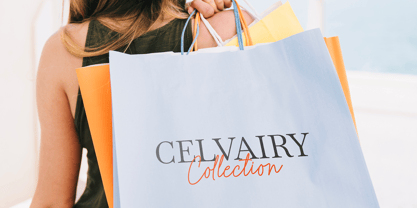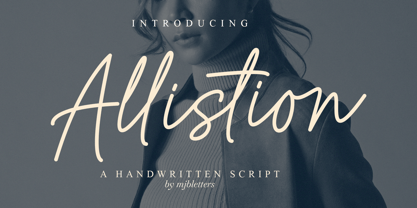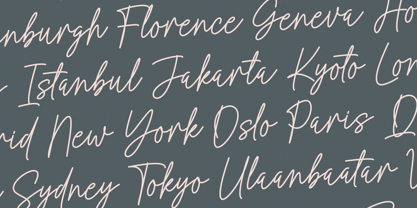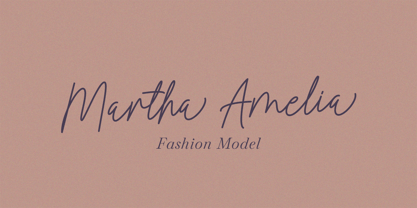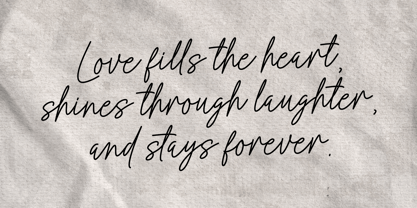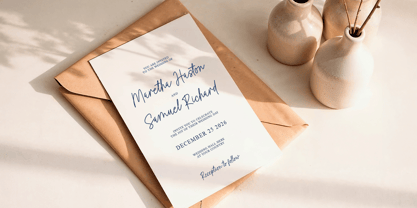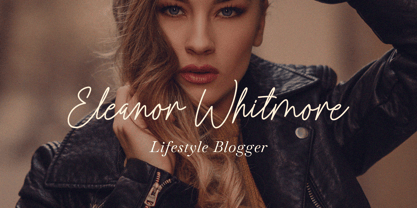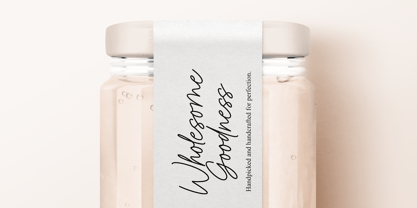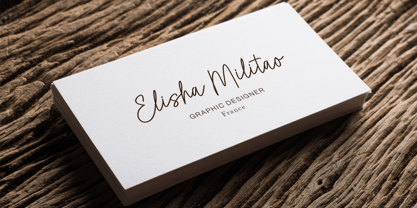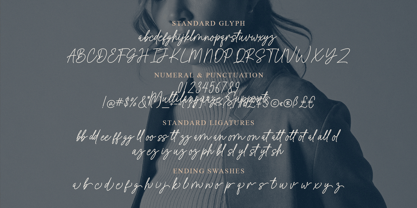
Allistion
by MJB Letters
The Allistion Font Family was designed by Muhammad Mujibulloh and published by MJB Letters. Allistion contains 1 styles.
Allistion is a beautifully crafted handwritten script font that exudes elegance and modernity. With its smooth, flowing strokes and well-balanced letterforms, this font strikes the perfect balance between classic charm and contemporary style.
Designed to bring a sophisticated touch to any project, Allistion is ideal for branding, logos, wedding invitations, packaging, social media, editorials, and other creative designs.
Features:
– Elegant and natural handwritten style
– Multilingual support for various languages
– Includes ligatures and alternates for unique customization
– Versatile and easy to use across different design projects
Allistion adds a refined and professional touch to your creative work. Let your designs stand out with its graceful and timeless appeal!